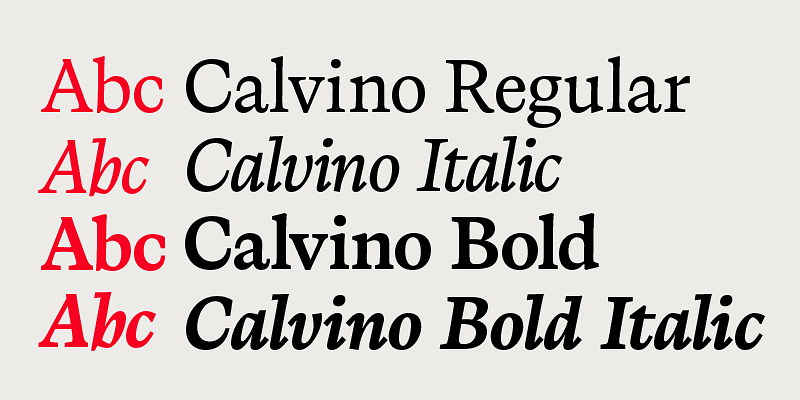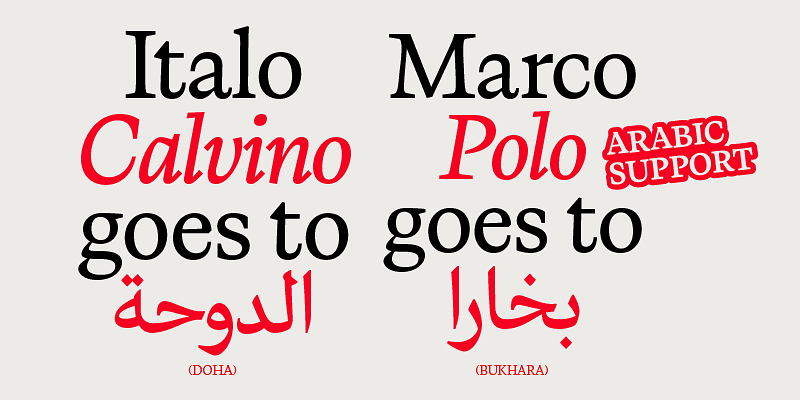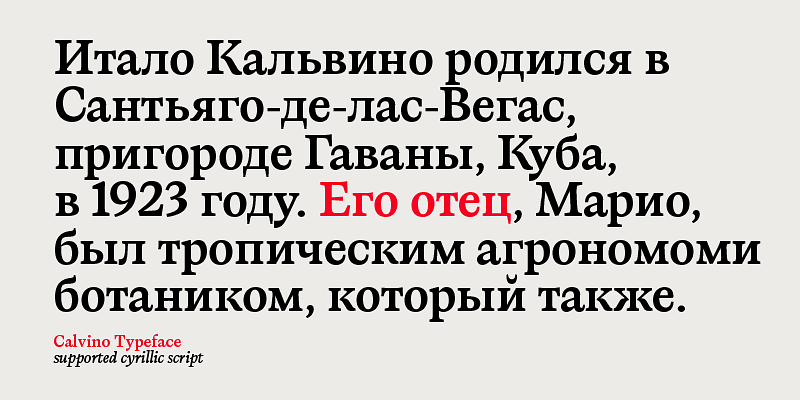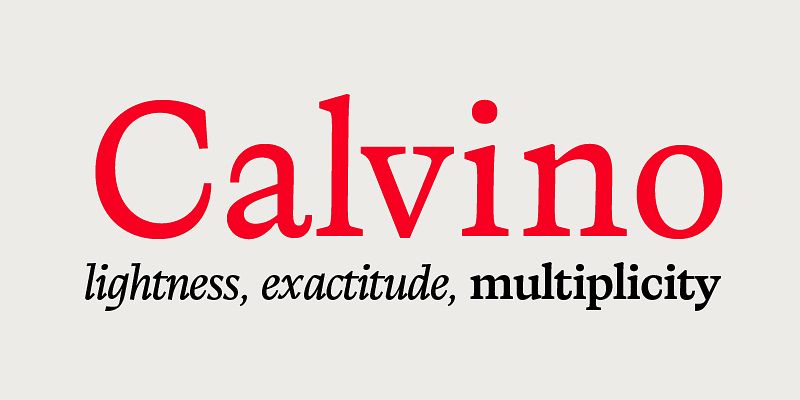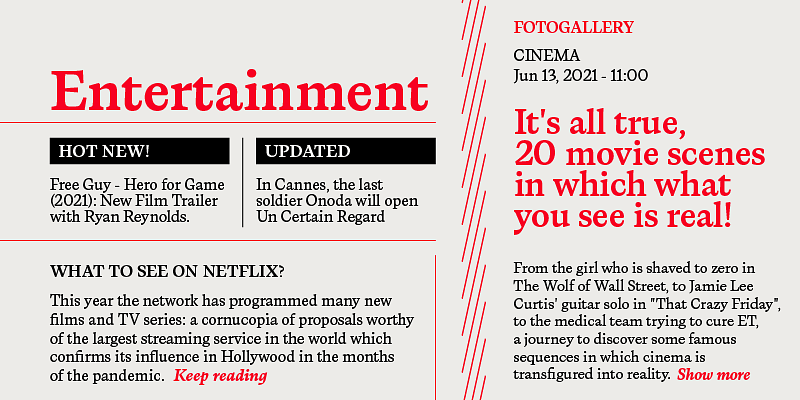
In designing the Calvino typeface family Andrea Tartarelli set himself the challenge to follow the principles expressed by the italian writer Italo Calvino in his masterpiece Six memos for the next millenium. Exactitude and visibility are translated typographically through the reference to sixteen century garalde typography and its controlled, highly legible letterforms. To balance this formal rigour, lightness and quickness were added by letting the design be inspired by the calligraphic hand, following the lesson of Gudrun Zapf. The idea of multiplicity was kept central, developing Calvino in a range of weights encompassing both display and text use cases, and then expanding the design space with the inclusion of a display sub-family, Calvino Grande, to provide users with a full typographic palette to cover all editorial needs. Sharing the same formal structure, Calvino Grande sports condensed proportions, sharper details and tighter metrics. Both Calvino and Calvino Grande are complemented with a set of italic letterforms, with differences in design and slant to better work at different point size. All the 34 weights of the Calvino family come with an extended latin and cyrillic charset, covering over two hundred languages, and all equipped with a wide range of open type features including positional numerals, alternate forms, and stylistic sets. Four variable typefaces are also included in the full package, for any need of fine-tuning the typeface grade of weight. Special thanks go to Laurène Girbal for the help in developing the regular weight.